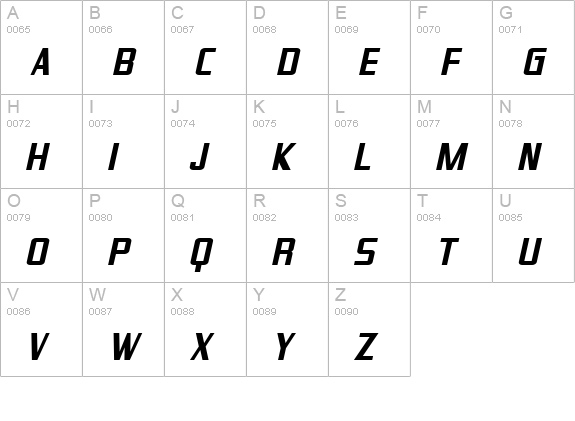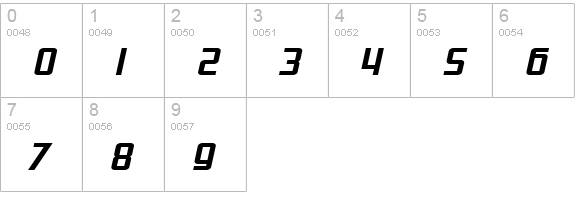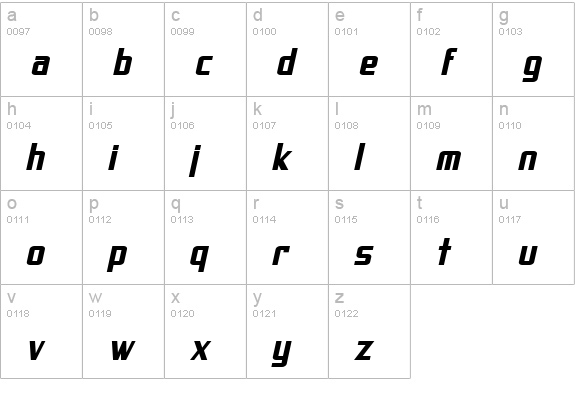
SF Proverbial Gothic Bold Oblique Font Details
SF Proverbial Gothic Bold Oblique is a strong, high-contrast, italic variant in the SF typeface family \xE2\x80\x94 well suited to headlines, attention-grabbing titles, and strong calls-to-action.
SF Proverbial Gothic Bold Oblique font is a striking and commanding typeface that effortlessly combines the elegance of gothic letterforms with a contemporary twist. Its bold and slanted design exudes confidence and adds a touch of drama to any project it is used in. This font is perfect for headlines, logos, posters, and any design that requires a strong and impactful look. Its sharp and angular shapes create a sense of power and authority, making it ideal for projects that need to make a bold statement. But what sets SF Proverbial Gothic Bold Oblique font apart is not just its stunning design, but also its accessibility. This font is freely available to download at FontsMarket.com, allowing designers and creatives to use it in their projects without any restrictions. Whether you are a professional designer or a student working on a personal project, this font gives you the freedom to express your creativity without any limitations. With SF Proverbial Gothic Bold Oblique font, you can bring your designs to life and captivate your audience with its unique and striking appearance. Its versatility makes it suitable for a wide range of applications, from branding and advertising to editorial design and web graphics. So why settle for ordinary when you can make a statement with SF Proverbial Gothic Bold Oblique font? Download it now for free at FontsMarket.com and unlock a world of possibilities for your design projects. Let this font be your secret weapon to create eye-catching and memorable designs that stand out from the crowd.